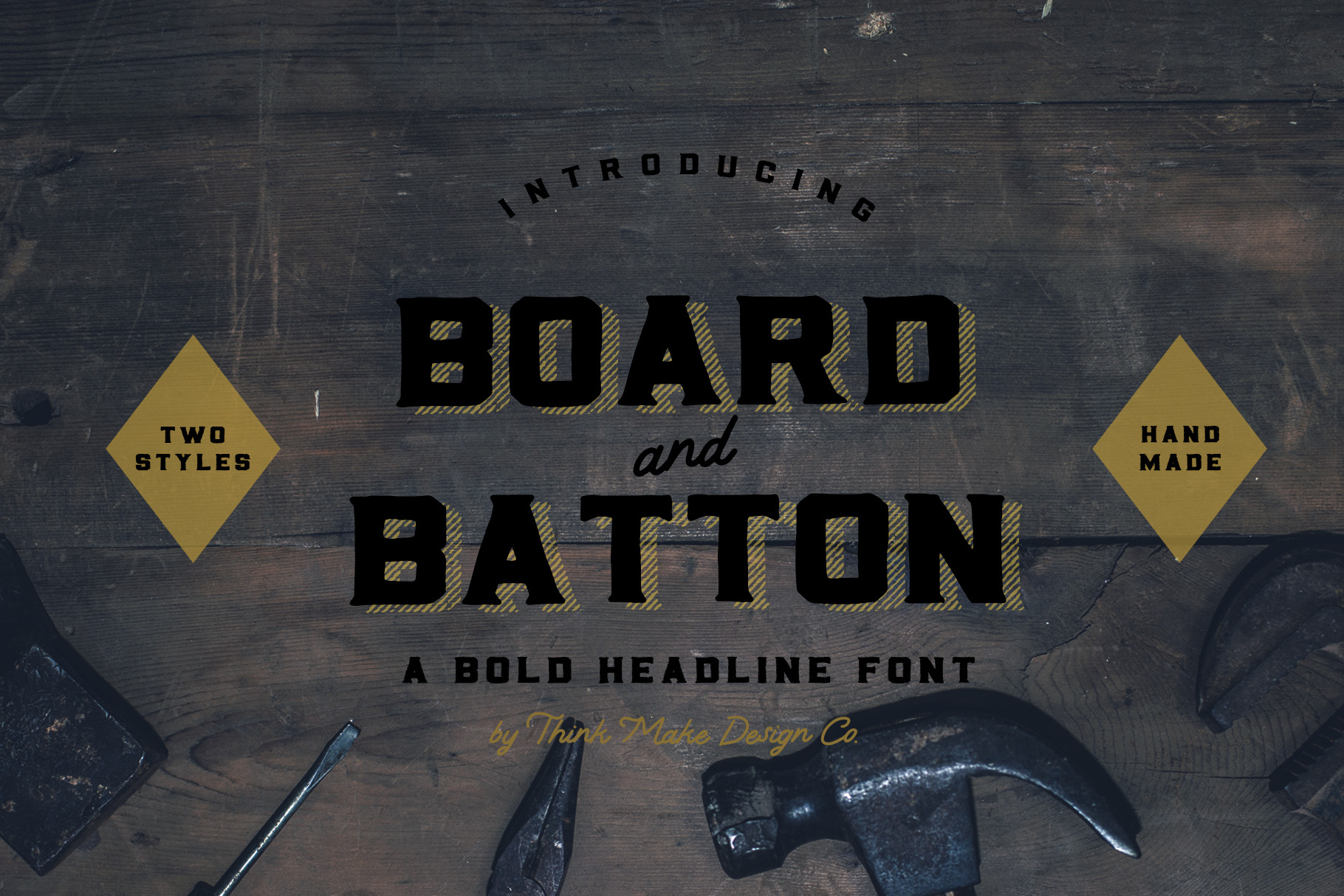
Board & Batton Font
Board & Batton is a carefully hand crafted font in two styles inspired by the rough and rugged. Great for industrial logos, clean but personable branding, and stunning social media posts.